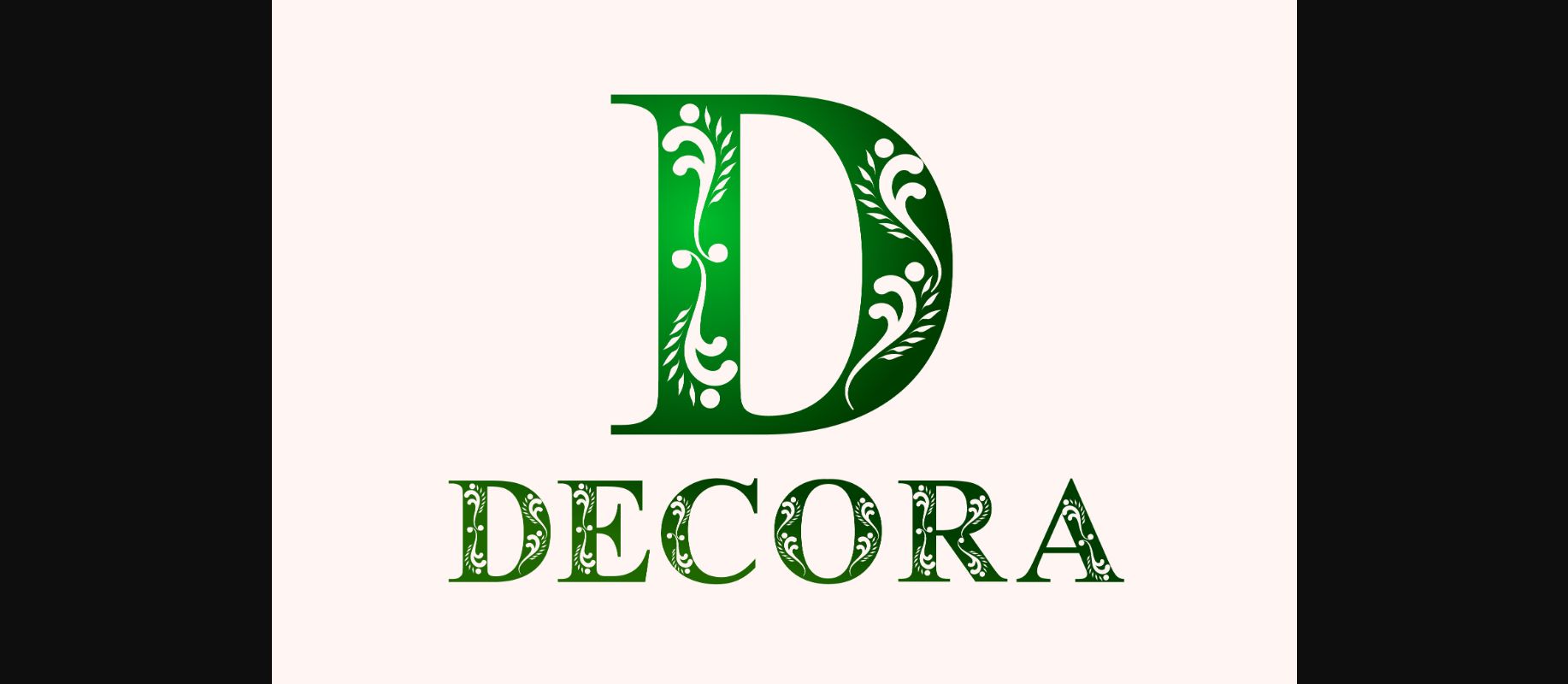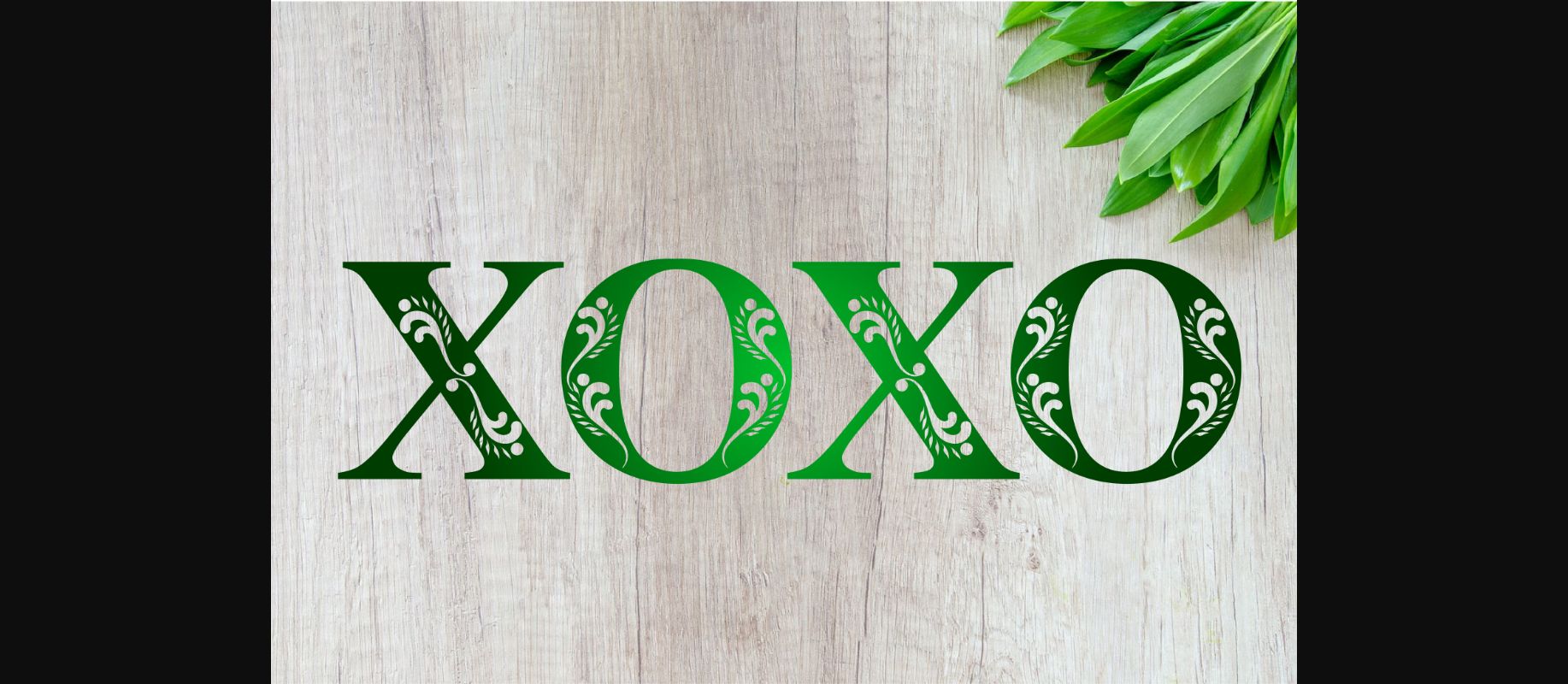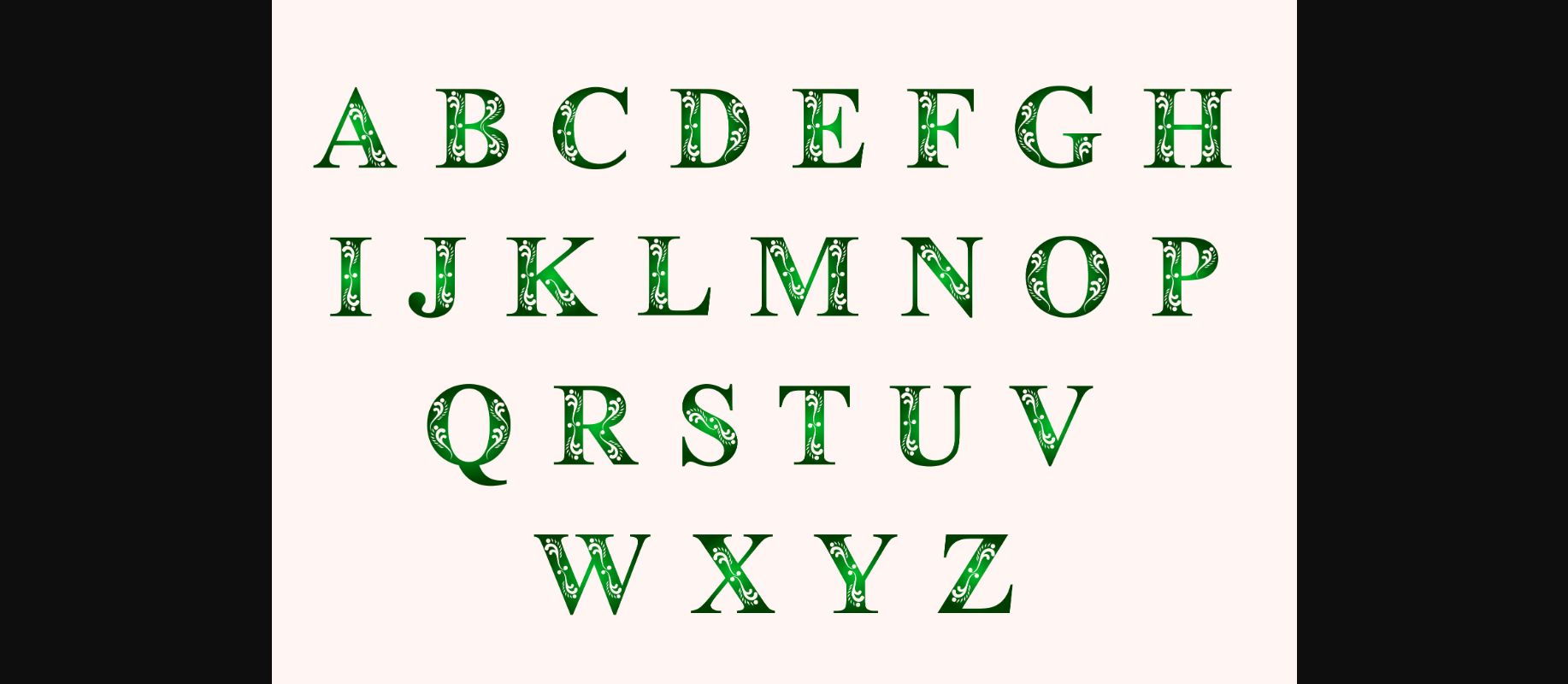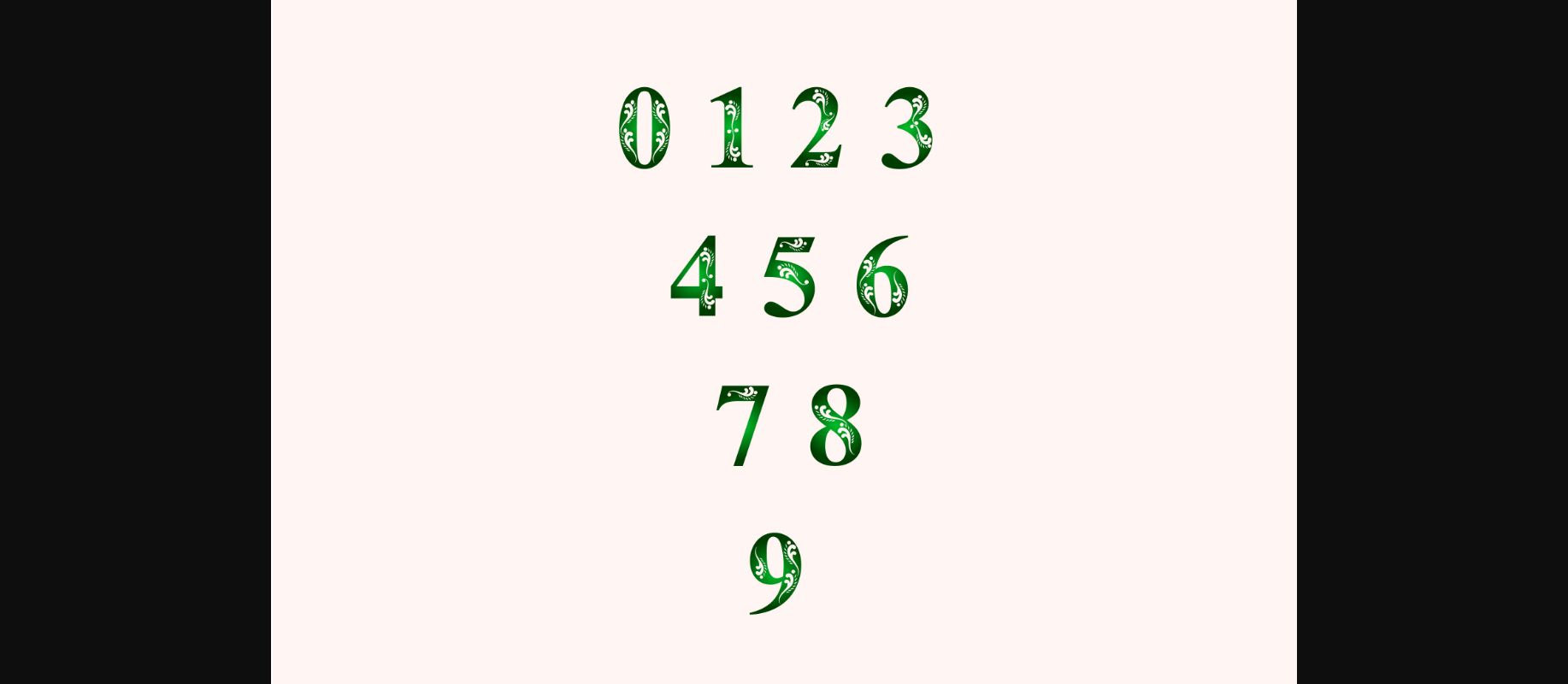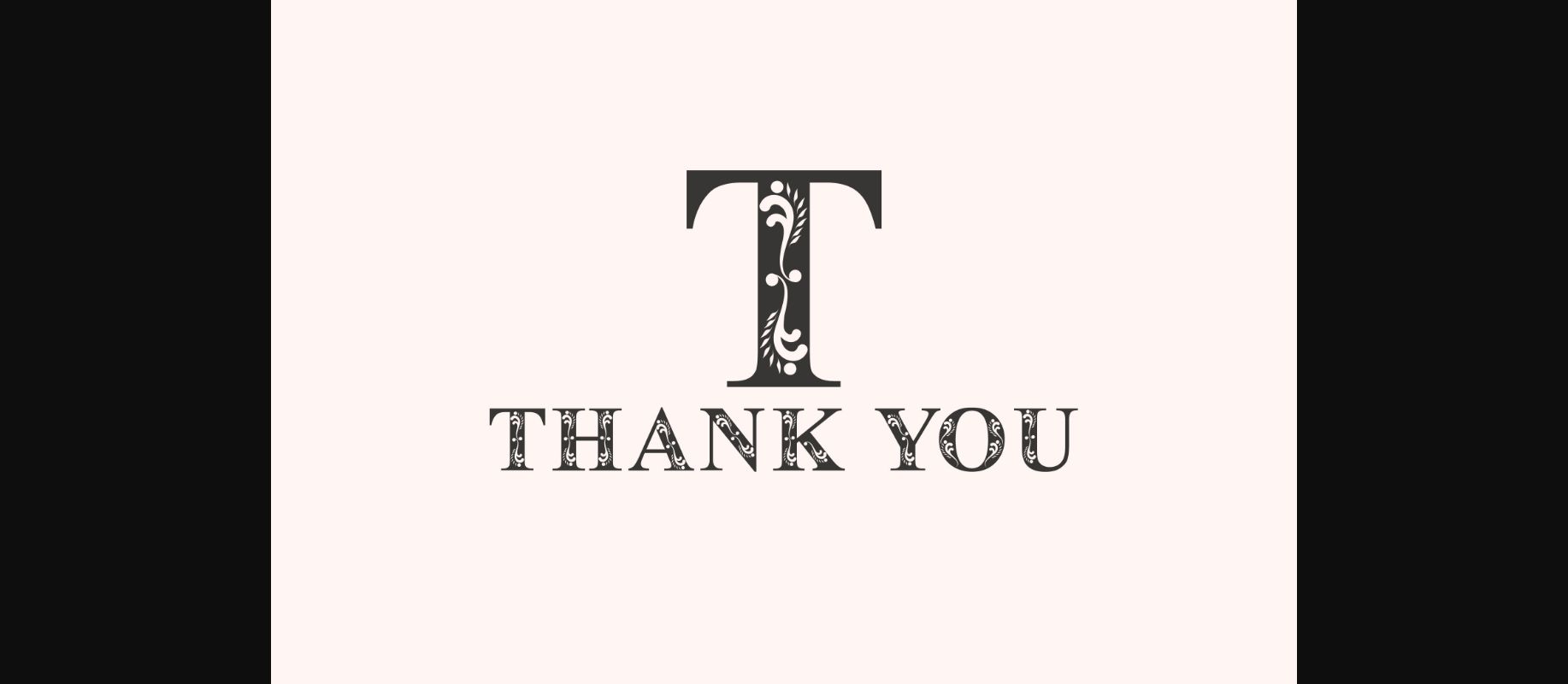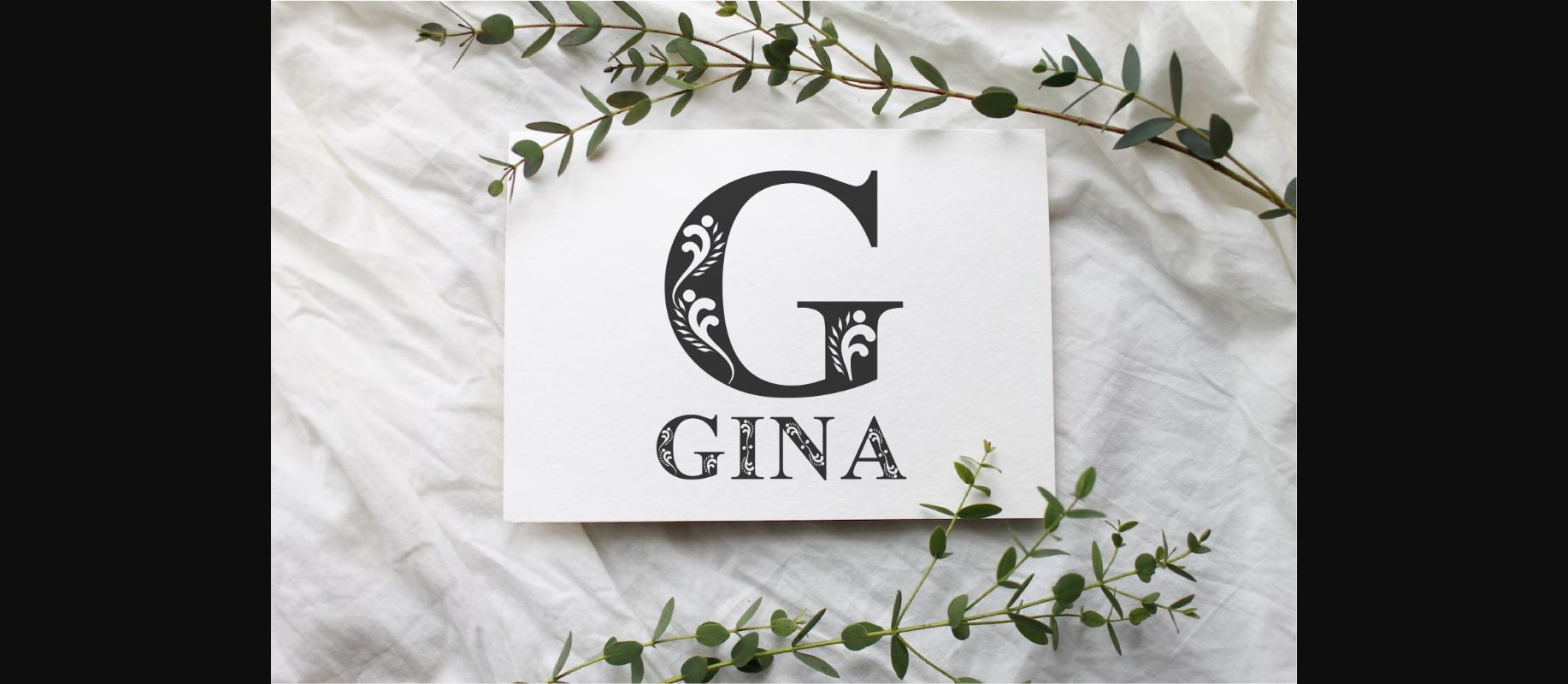
HomeDecorative FontsDecora Font Decorative Fonts Decora Font FacebookXPinterestWhatsApp 1 of 8 ... Decora Font Poster 2... Decora Font Poster 3... Decora Font Poster 4... Decora Font Poster 5... Decora Font Poster 6... Decora Font Poster 7... Decora Font Poster 8... About Decora Font Decora is an incredibly chic and elegant decorative font. No matter the topic, this font will be an incredible asset to your fonts’ library, as it has the potential to elevate any creation. DOWNLOAD NOW People also explored Written Font Gakyo Font Valkrie Font Lancilotto Font Beyond Monogram Font Black Pastel Font Tetraclericton Font Brilliant Sattamy Signature Font 306 0 TagsDecoraDecora Font Previous articleBlack History Month FontNext articleCupido Font LEAVE A REPLY Cancel reply Comment: Please enter your comment! Name:* Please enter your name here Email:* You have entered an incorrect email address! Please enter your email address here Website: Save my name, email, and website in this browser for the next time I comment. Personal Use Free Gardening Personal Use Free Read more about this font The Kingdom Personal Use Free Read more about this font Maharany Personal Use Free Read more about this font Vincent Familiante Personal Use Free Read more about this font BLOG Using Fonts in Digital Marketing: Tips to Strengthen Your Brand Identity In the realm of digital marketing, every visual element plays a crucial role in shaping a brand's identity, and fonts are no exception. The... Transform Your Website: Elevate Your Typography with 7 Best Web Font Generators 5 Fonts That Will Dominate Design Trends in 2026 Free Fonts Risk: Why Free Fonts Can Be Dangerous for Designers